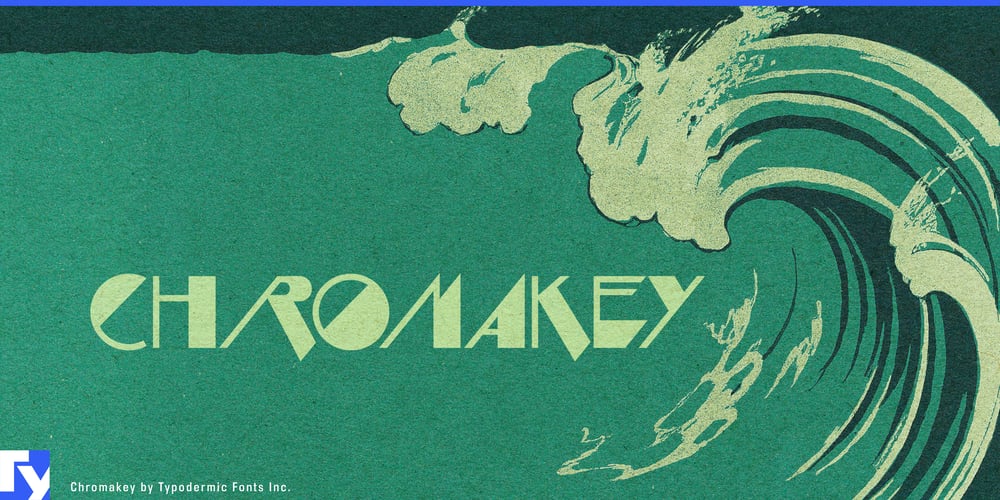
Chromakey
Chromakey font
Chromakey Font Family was designed by Ray Larabie and published by Typodermic. Chromakey contains 1 styles and family package options. Step into the future with Chromakey, a headline typeface that fuses classic video game aesthetics with sleek, futuristic design. Inspired by iconic gaming box art, Chromakey blends sci-fi angularity and Art Deco elegance to create a truly unique visual language.Each character in Chromakey is a masterpiece of angular precision, its jagged lines and sharp edges evoking both pixelated nostalgia and cutting-edge technology. This bold, edgy aesthetic demands attention, transforming even the simplest headline into a powerful visual statement. Whether you’re crafting posters for a tech convention, designing logos for a startup, or creating marketing materials for a sci-fi blockbuster, Chromakey infuses your work with unmistakable futuristic flair.Like a well-designed game interface, Chromakey communicates effectively across cultures. It supports a vast array of Latin-based writing systems, ensuring your message maintains its space-age charm from Helsinki to Buenos Aires.Don’t settle for typography that blends in. Choose Chromakey and watch your designs transcend the ordinary, capturing imaginations across the globe. It’s time to level up your typography game—let Chromakey be your cheat code to standout design.